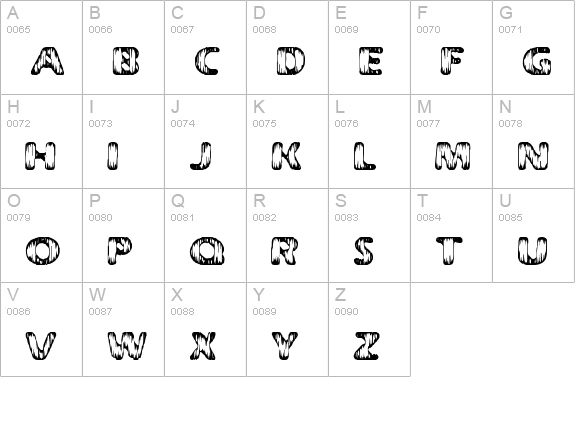
Weathered BRK Font Details
Weathered BRK font is a stunning display typeface that exudes a sense of rustic charm and weathered beauty. Its unique design features rough edges and worn-out details, giving it an authentic vintage feel. This font is perfect for adding a touch of nostalgia to your designs or creating a distressed effect that captures the essence of a bygone era. With its bold and eye-catching appearance, Weathered BRK font is sure to make a statement in any project. Whether you're designing a poster, logo, or packaging, this font will add character and personality to your work. Its versatility allows it to fit seamlessly into various design themes, from retro to grunge. One of the best things about Weathered BRK font is that it is free to download. You can easily access this font at FontsMarket.com, where you'll find a vast collection of high-quality fonts. By offering this font for free, the creators of Weathered BRK font have made it accessible to everyone, ensuring that designers of all levels can enjoy its unique style and versatility. Download Weathered BRK font today and let its weathered charm bring your designs to life. Whether you're creating a vintage-inspired project or simply want to add an element of texture and character, this font is a must-have in your design arsenal. With its freely available download, there's no reason not to explore the endless possibilities that Weathered BRK font has to offer.